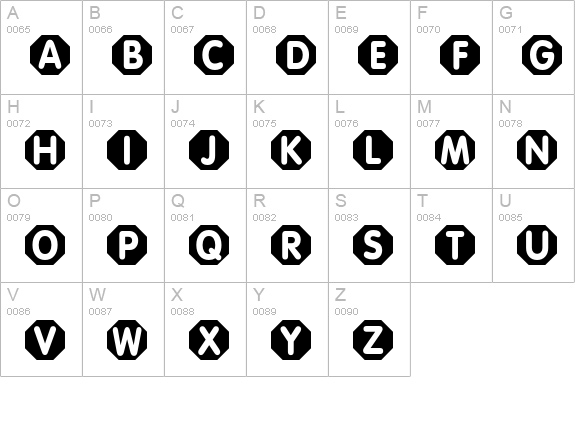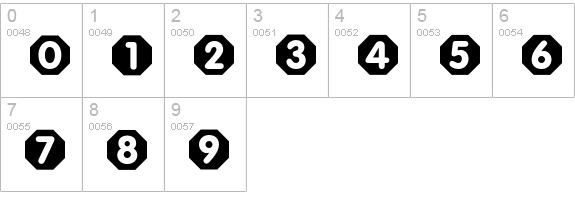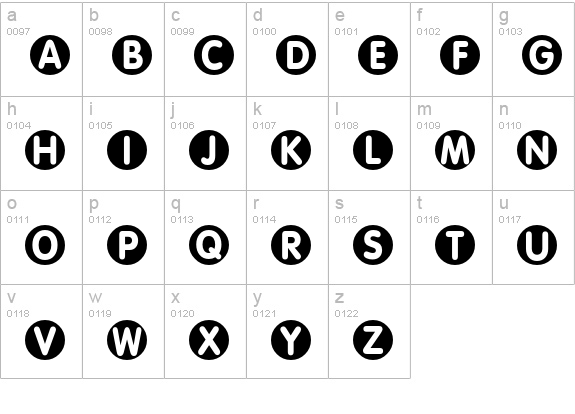
StopAndGo Font Details
Introducing StopAndGo font, a versatile and modern typeface that is perfect for a wide range of design projects. With its sleek lines and contemporary style, StopAndGo font is sure to make a statement in any layout. Whether you're creating a logo, poster, website, or social media graphic, this font will add a touch of sophistication and flair. What's even better is that StopAndGo font is completely free to download at FontsMarket.com. That's right, you can access this high-quality font without having to spend a dime. Don't miss out on the opportunity to enhance your designs with StopAndGo font - download it today and let your creativity shine!